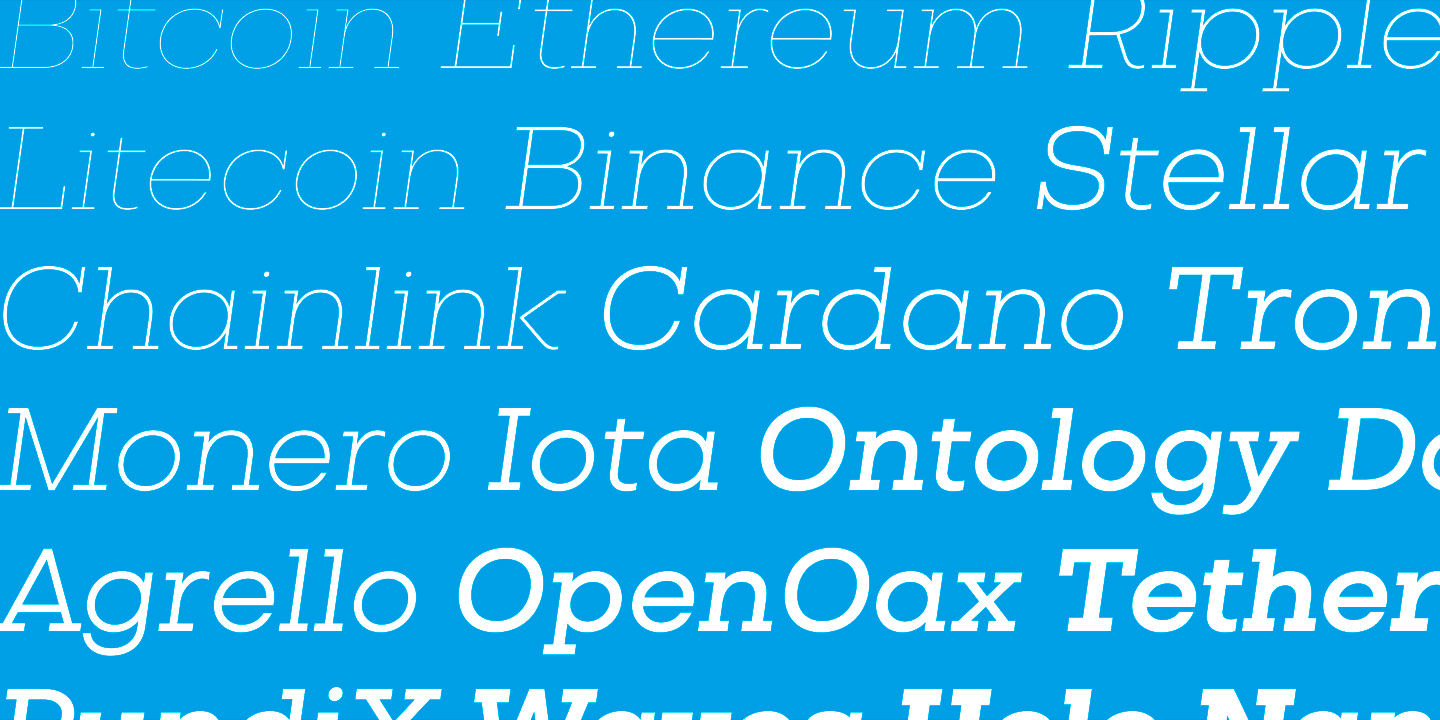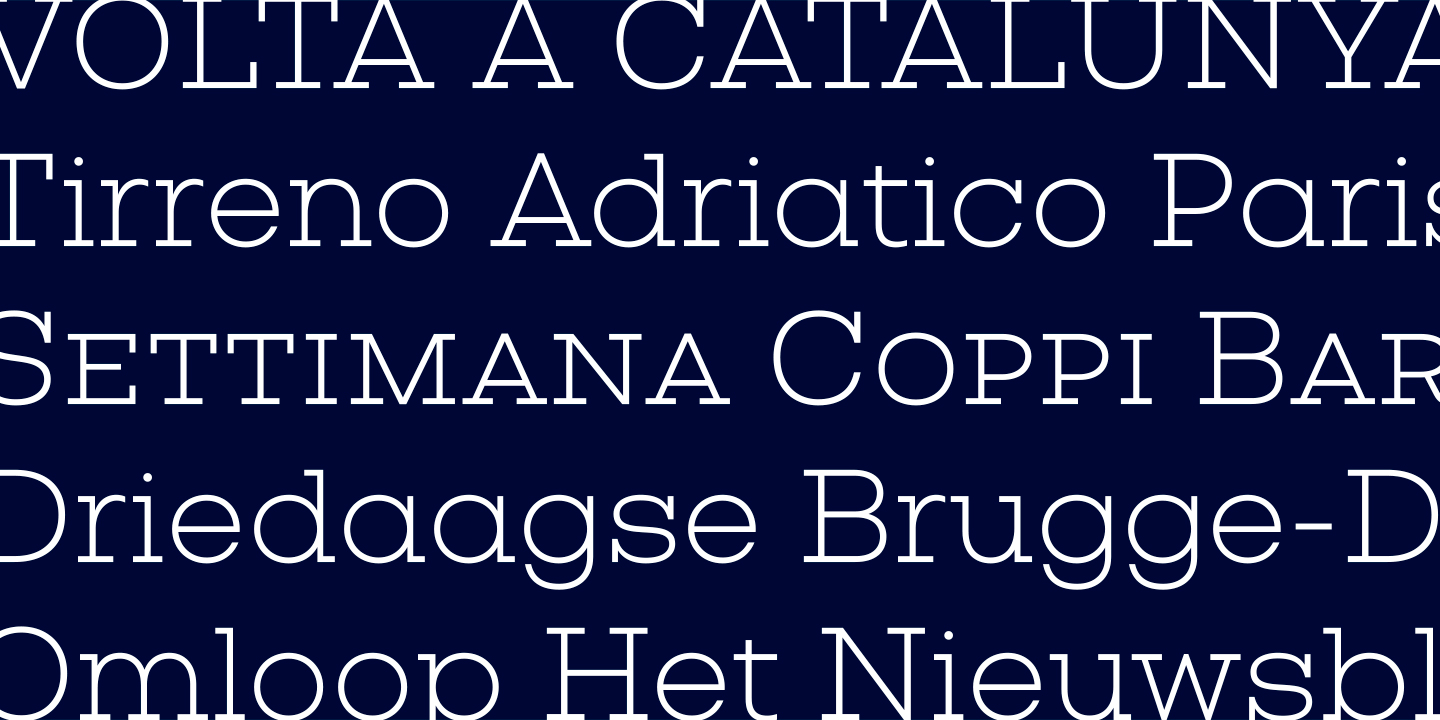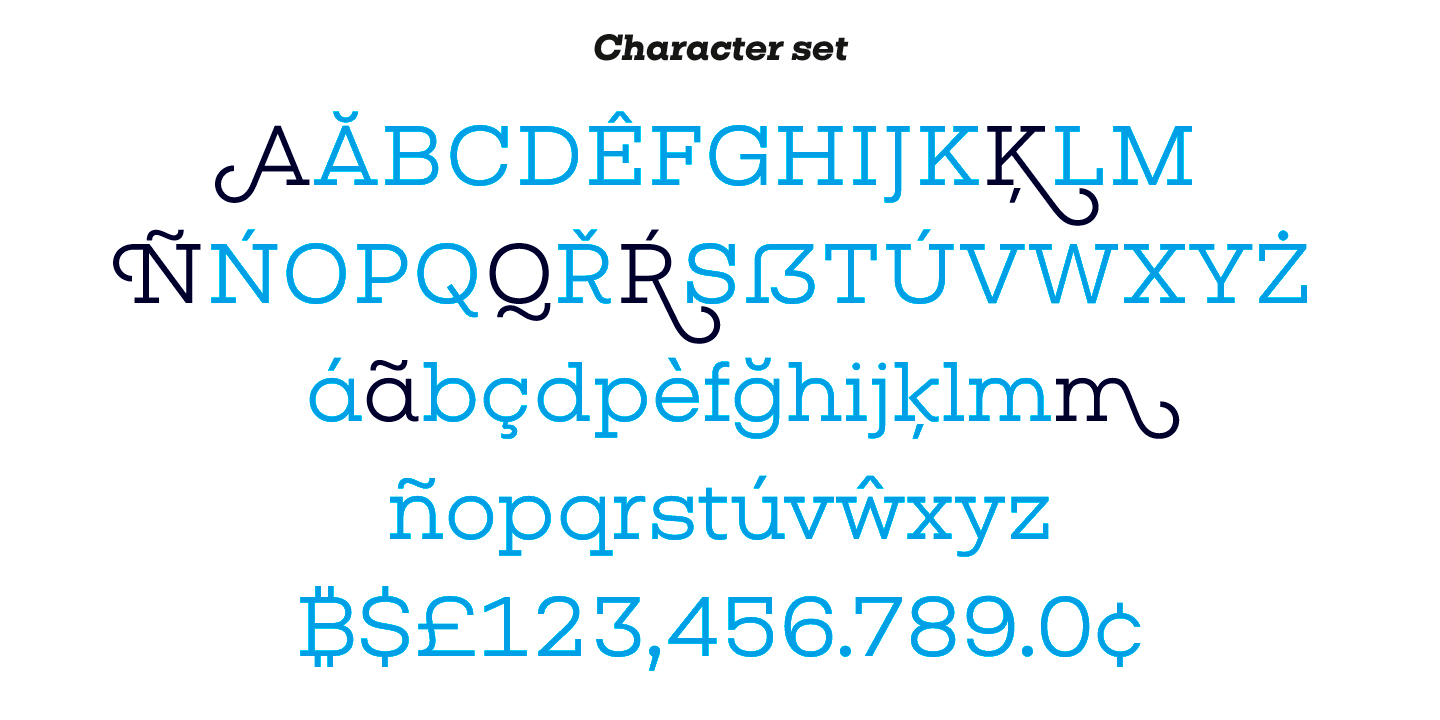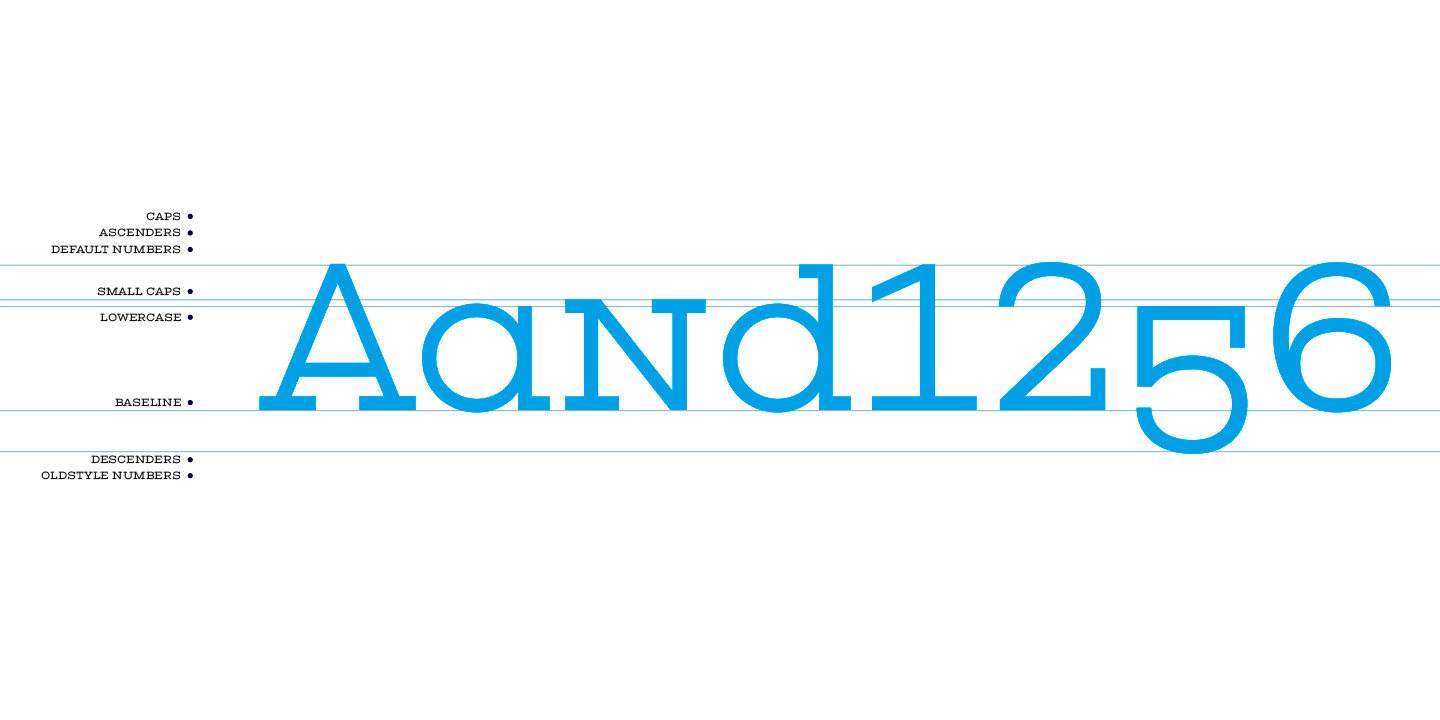
About Vicky
Vicky is a slab serif typeface for headers and headlines, designed with the fundamental geometric shapes in mind, as to ensure balance and harmony. Like any slab serif font, it has a very particular strength and sturdiness. Since its shapes are born from…